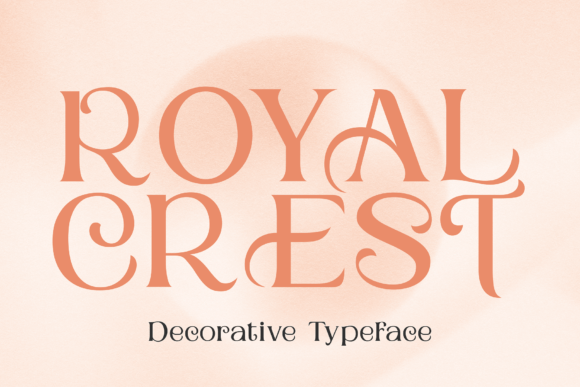
Step into the realm of regal typography with Royal Crest, a breathtaking serif font family meticulously crafted to elevate your designs. Each character, adorned with intricate details and elegant flourishes, embodies the essence of sophistication and artistry.
Born from the creative minds at HipFonts, Royal Crest is a masterpiece that captures the essence of timeless beauty. With its ornate curves and sweeping strokes, this font is a true eye-catcher, leaving an indelible impression on your audience. Whether you're designing wedding invitations, creating eye-catching logos, or crafting stunning social media graphics, Royal Crest will add a touch of luxury and sophistication to your projects.
As a serif font, Royal Crest exudes a sense of elegance and tradition. Its graceful serifs add a touch of visual interest, drawing the reader's eye to the written word. This makes Royal Crest the perfect choice for creating memorable quotes, impactful headlines, and captivating body text.
But Royal Crest is more than just a pretty face. Its highly legible and versatile nature makes it a practical choice for a wide range of design applications. Whether you're working on print or digital projects, Royal Crest ensures that your message is conveyed with clarity and impact.
And with its wide range of weights and styles, Royal Crest offers endless creative possibilities. From delicate hairlines to bold and impactful displays, this font family adapts effortlessly to any design vision.
If you seek a font that exudes elegance, sophistication, and timelessness, look no further than Royal Crest. Its exquisite craftsmanship and versatility make it the perfect choice for designers who demand the very best.